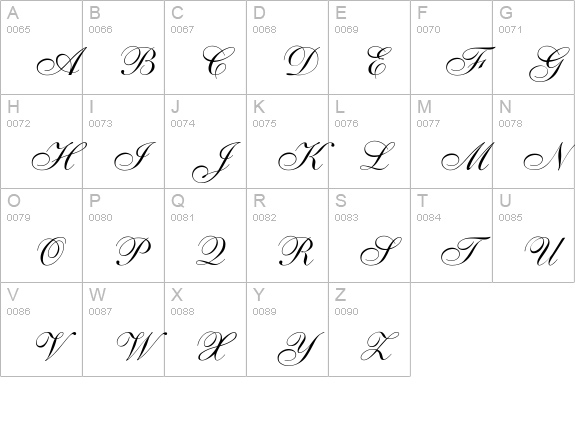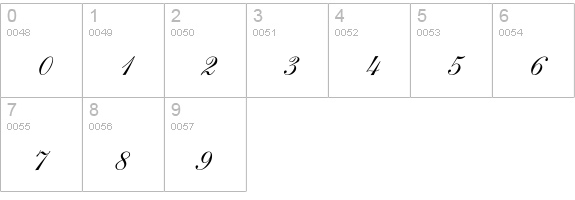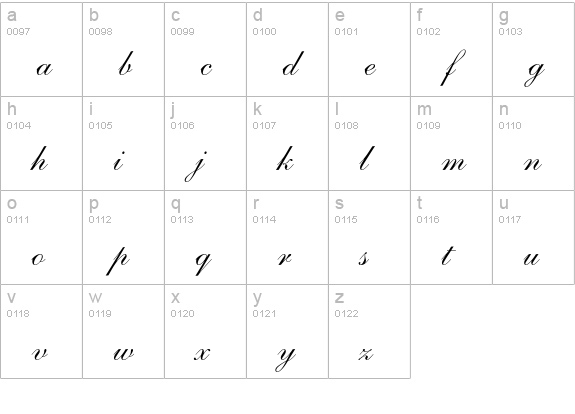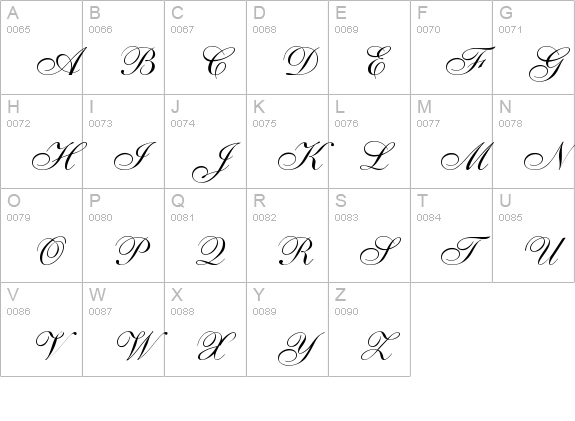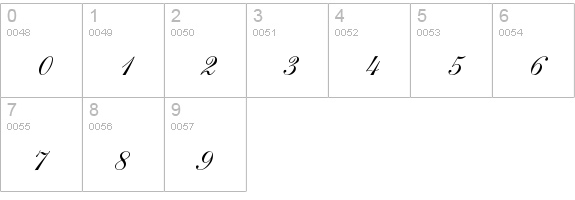
Nelson Font Details
Nelson Font is a stunning display typeface that exudes elegance and sophistication. Its sleek and modern design makes it perfect for a wide range of design projects, from branding to editorial design. With its clean lines and balanced proportions, Nelson Font adds a touch of class to any project. The best part? Nelson Font is completely free to download at FontsMarket.com. This means you can easily incorporate this stylish typeface into your designs without breaking the bank. Whether you're working on a website, poster, or logo, Nelson Font is sure to elevate your design to the next level. Don't miss out on this opportunity to enhance your projects with the timeless beauty of Nelson Font. Download it for free today at FontsMarket.com and start creating stunning designs that will leave a lasting impression.